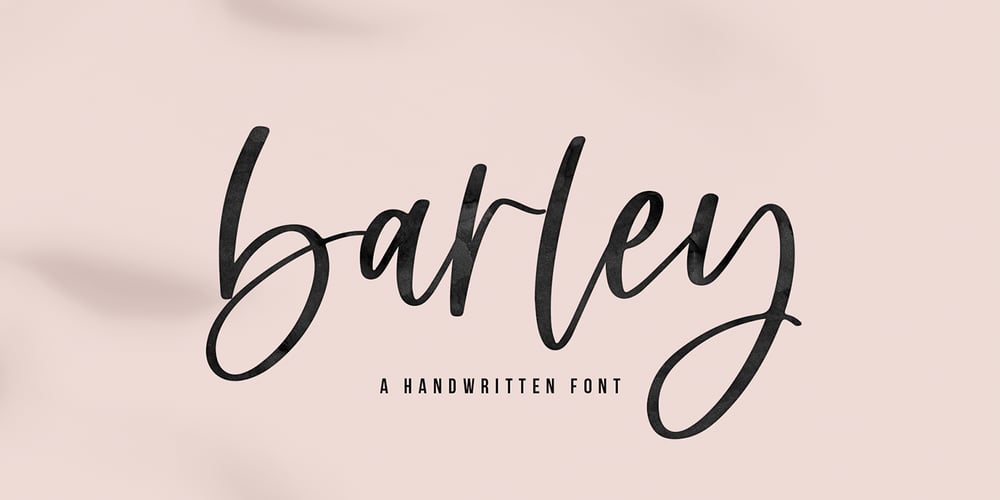
Barley Font Family was designed by Kaitlynn Albani and published by KA Designs. Barley contains 1 styles and family package options. Barley is a fantastic choice when you are looking for a script font with a modern touch. This font is hand-lettered, which gives it an authentic style. It will add a luxurious touch to any design project that you wish to create! This font is perfect for creating wedding decor and invitations, branding, logos, signatures, product packaging and much more!